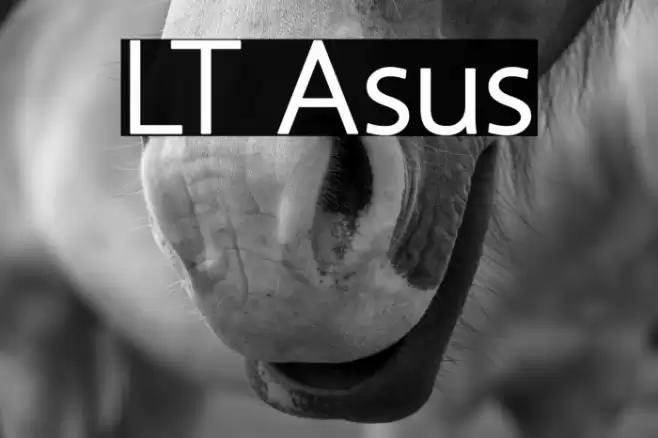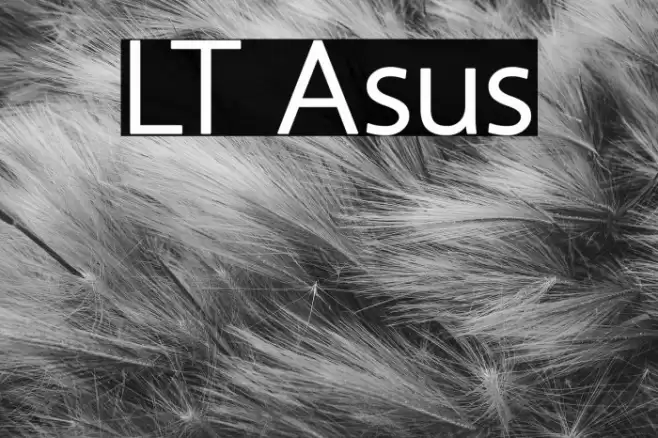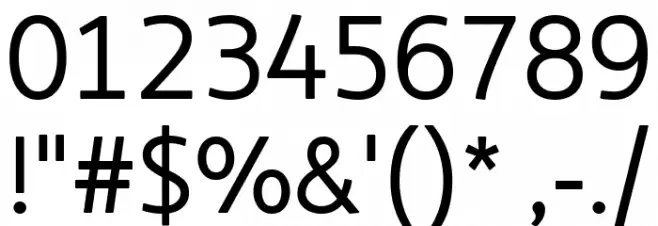
LT Asus Font
LT Asus Description
This font features a clean and modern sans-serif design, characterized by its geometric shapes and uniform stroke widths. The uppercase letters are bold and assertive, while the lowercase letters maintain a consistent and harmonious appearance. The numerals are clear and easy to read, making them suitable for both digital and print applications. Special characters are well-defined and integrate seamlessly with the overall style. The font's simplicity and clarity make it versatile for various design needs.
A modern, geometric sans-serif font with clean lines and uniform strokes from Regular fonts.
- Proposed Projects: Ideal for branding, web design, corporate materials, and user interfaces.